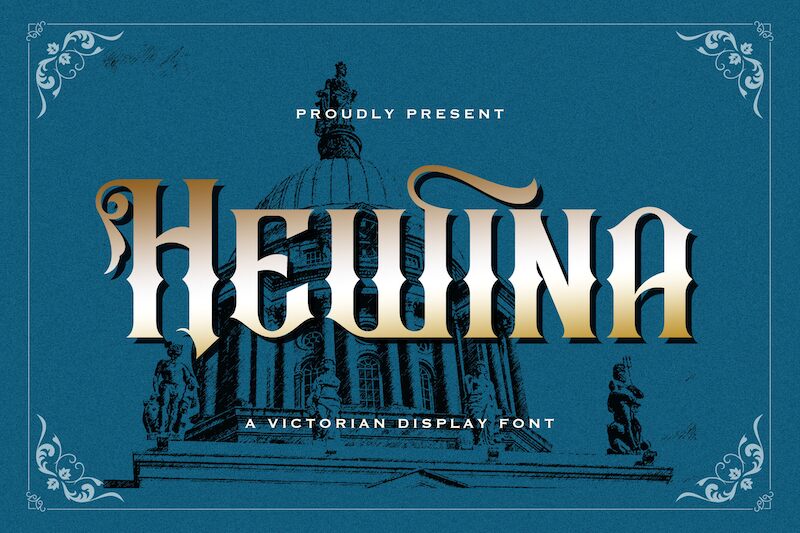
Hewina, a captivating creation from StringLabs Creative Studio, exudes an enigmatic blend of gothic and Victorian influences, seamlessly fused into a modern aesthetic. This condensed font captivates with its striking silhouette, commanding attention through its intricate serifs and bold, unyielding strokes. The Hewina typeface evokes a sense of grandeur and timeless elegance, making it a versatile choice for a wide range of design applications.
The Hewina font's unique character lends itself to projects seeking to convey a sense of sophistication and understated power. From ornate book covers to impactful branding materials, this typeface effortlessly elevates the visual narrative, leaving a lasting impression on the viewer. Its condensed width allows for seamless integration into both print and digital mediums, making Hewina a versatile addition to any designer's toolkit.